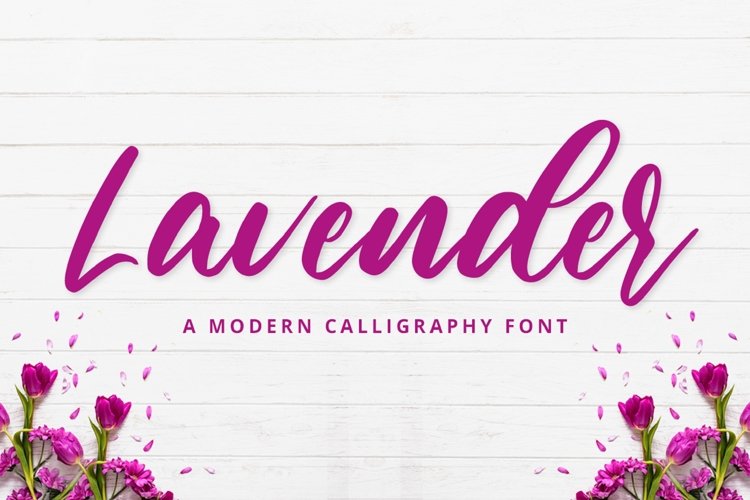
Introducing Lavender - A Calligraphy Font
Lavender, just like the flower symbolises purity, silence, purity, serenity, grace and calmness. A perfect font for your inspirational website, for your social media branding, Pinterest banners, printed invitations, and more!
With Lavender font, you’ll inspire your audience, clients and guests and people around you!